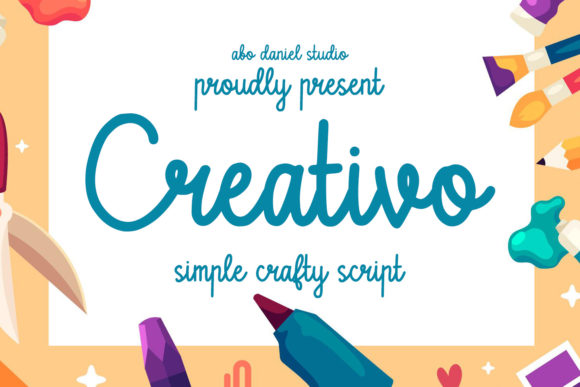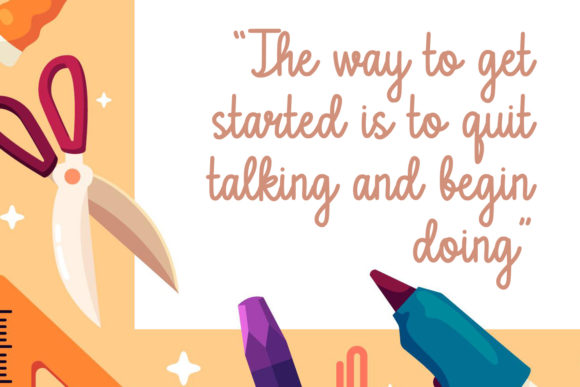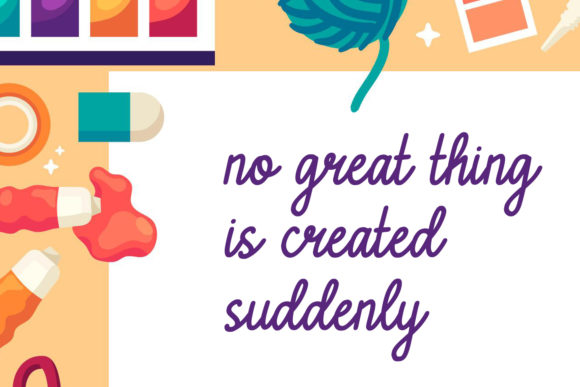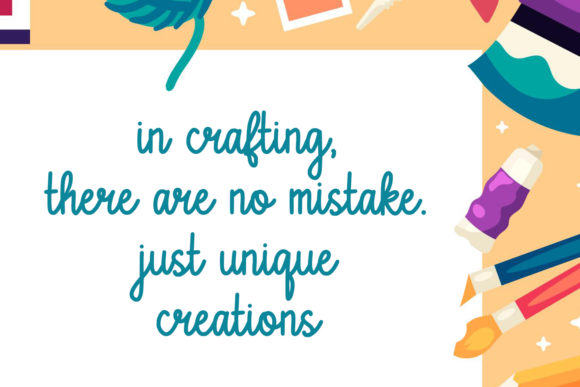
About Creativo Font
Creativo is a sweet and delicate handwritten font. Dainty and joyful, this font will be ideal for writing wedding invitations, cards or any other design that may need a romantic, personalized touch!